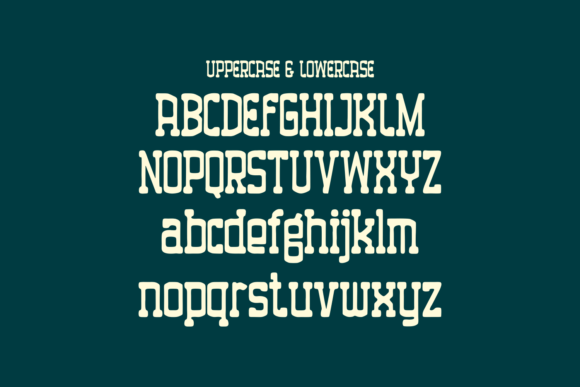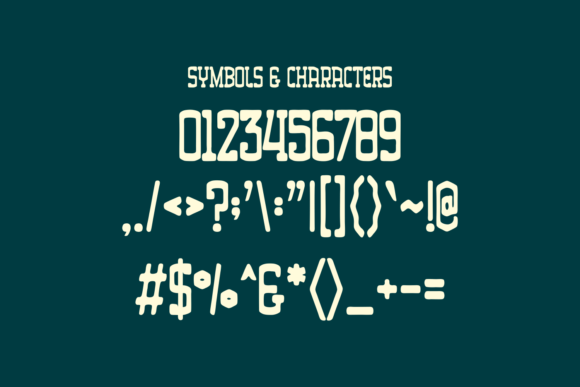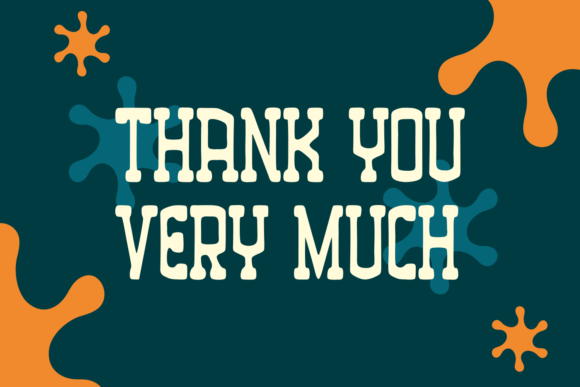
Introducing Amerus Font: The Ultimate Display Font for Joyful Designs
Are you tired of using the same old fonts in your designs? Do you want to add a touch of whimsy and playfulness to your creative projects? Look no further than Amerus Font, a cute and quirky display font that’s sure to bring a smile to your face. In this article, we’ll dive into the world of Amerus Font and explore how it can elevate your designs to the next level.
What is Amerus Font?
Amerus Font is a unique and eye-catching display font that’s perfect for designers and crafters looking to add a dash of personality to their work. With its playful and curly design, Amerus Font is sure to stand out from the crowd and make your designs shine. Whether you’re working on a logo, a poster, or a social media graphic, Amerus Font is the perfect choice for anyone looking to add a bit of fun and flair to their project.
The Benefits of Using Amerus Font
So why choose Amerus Font for your next design project? Here are just a few benefits of using this amazing display font:
• Adds a joyful touch: Amerus Font is designed to bring a smile to your face. Its playful and quirky design is sure to add a touch of whimsy to your designs and make them more engaging.
• Perfect for display text: Amerus Font is specifically designed for display text, making it perfect for headlines, titles, and other prominent text elements.
• Easy to read: Despite its playful design, Amerus Font is surprisingly easy to read, making it perfect for use in a variety of contexts.
• Versatile: Amerus Font can be used in a wide range of design projects, from logos and posters to social media graphics and more.
How to Use Amerus Font in Your Designs
Using Amerus Font in your designs is easy. Here are a few tips to get you started:
• Pair it with a simple font: Amerus Font is a bold and eye-catching font, so it’s best to pair it with a simpler font for body text.
• Experiment with colors: Amerus Font looks great in a variety of colors, so don’t be afraid to experiment and find the perfect hue for your design.
• Use it for headlines and titles: Amerus Font is perfect for use in headlines and titles, where its playful design can really shine.
Who is Amerus Font for?
Amerus Font is perfect for designers and crafters who want to add a touch of personality to their work. Here are a few examples of who might benefit from using Amerus Font:
• Graphic designers: Amerus Font is a great choice for graphic designers looking to add a bit of whimsy to their designs.
• Crafters: Amerus Font is perfect for crafters who want to add a personal touch to their handmade projects.
• Social media managers: Amerus Font is a great choice for social media managers looking to create eye-catching graphics that will stand out on social media.
Font Name Amerus Font
Author lelevien
In conclusion, Amerus Font is a unique and eye-catching display font that’s perfect for designers and crafters looking to add a touch of personality to their work. With its playful and curly design, Amerus Font is sure to bring a smile to your face and make your designs shine. So why not give Amerus Font a try and see how it can elevate your designs to the next level?
• Is Amerus Font easy to read?: Yes, despite its playful design, Amerus Font is surprisingly easy to read.